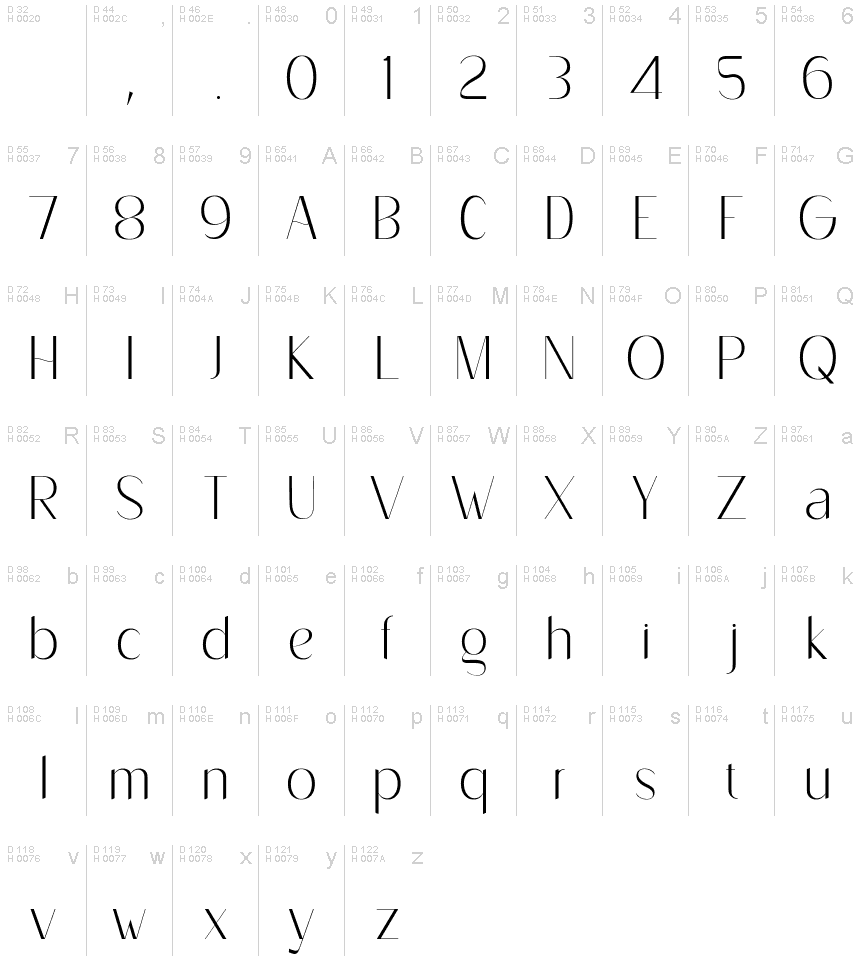
Refanea Regular
Refanea, designed by Muksal Creative, is a captivating sans serif font with a light weight. Its clean and minimalistic design exudes elegance and sophistication, making it ideal for projects that require a modern and refined touch.
Whether you're designing a sleek website, creating eye-catching logos, or crafting professional business materials, Refanea's gentle curves and balanced letterforms will add a touch of subtle beauty to any project.
With its versatility and charm, this sans serif font is ready to elevate your designs to new heights.